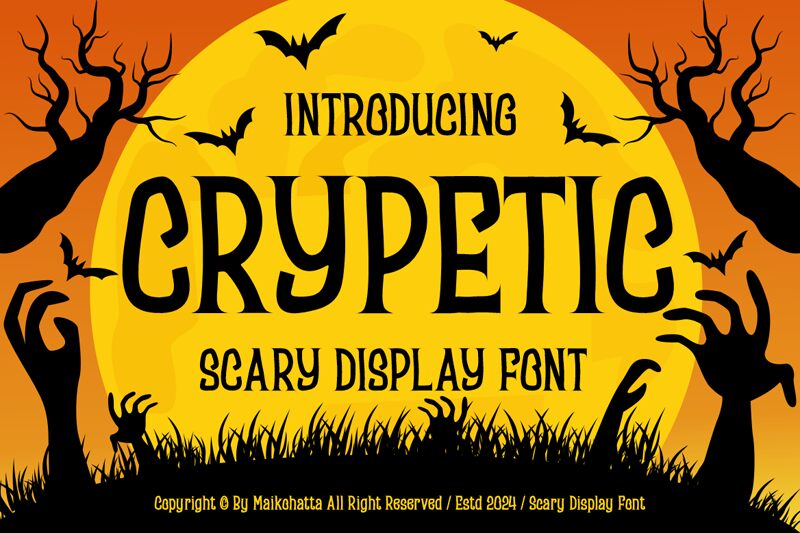
Crypetic font family by Gilang Ternadho is an innovative vintage-style font duo that is crafted by hand. This holiday-type font features a mysterious, eerie, and whimsical style meant to decorate all your spooky design projects in October and beyond. Just install the font file and get ready to use each letter effortlessly in real-time.
The Crypetic font is haunting, eye-catching, and dramatic as it has a theatrical visual charm. It’s the perfect choice for designing posters, book covers, packaging, and branding projects. Other possible uses include flyers, social media covers, invitations, and prints like t-shirts or albums.